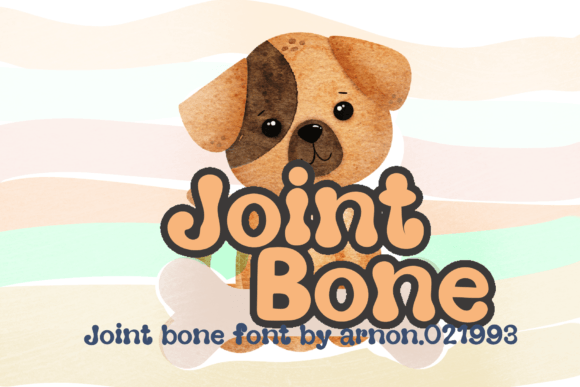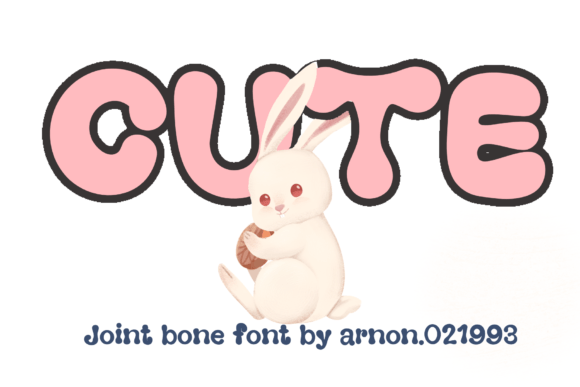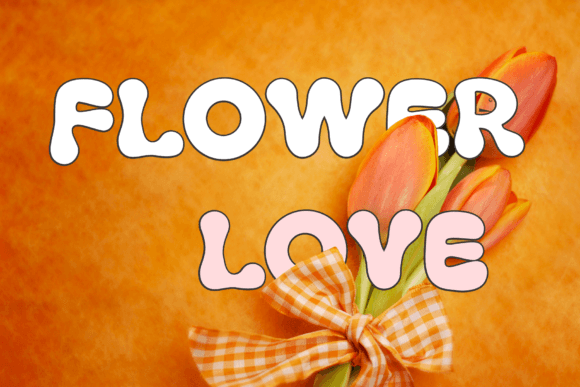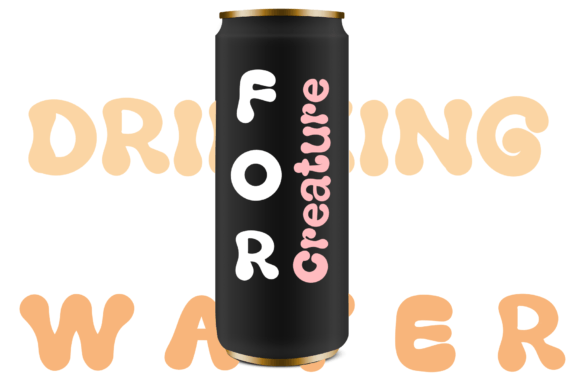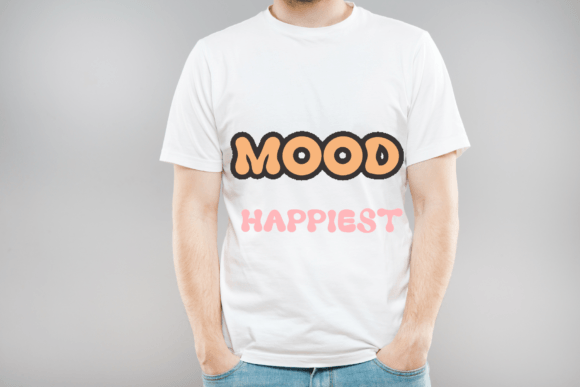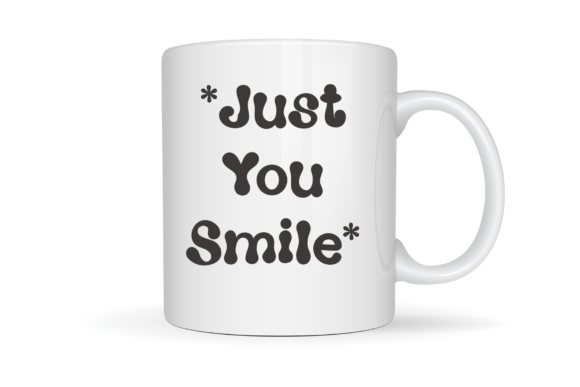
Introduction to Joint Bone Font
Imagine you’re brainstorming ideas for a new greeting card design. You have a blank canvas, a cup of coffee, and a spark of creativity that just won’t quit. Suddenly, the perfect font pops into your mind – something playful, high-quality, and attention-grabbing. This is where the Joint Bone Font comes in – a versatile design resource that will elevate your creative project to the next level.
As a designer, you’re constantly on the lookout for that one special font that will make your project stand out from the crowd. And with the Joint Bone Font, you’ve found it. This free download is perfect for adding a touch of whimsy to your designs, and its transparent background makes it easy to customize and integrate into any project. Whether you’re working on a birthday card, a logo, or a social media campaign, the Joint Bone Font is sure to bring a smile to your face and a professional touch to your work.
Key Features of Joint Bone Font
- High-quality design resource ideal for creative projects, including illustrations, animations, and graphics.
- Joint Bone Font is a unique design resource that can add a touch of elegance and sophistication to any creative project.
Honest Review: Joint Bone Font
As a designer, I’m always on the lookout for high-quality design resources to elevate my creative projects. Recently, I stumbled upon the Joint Bone Font, and I’m excited to share my thoughts on it.
What works well about this font is its unique and quirky design. The Joint Bone Font features a mix of modern and vintage elements that are sure to add a touch of personality to any project. I particularly love the variety of weights and styles available, making it easy to find the perfect fit for my design.
The font also includes a transparent background option, which is perfect for designers who want to create seamless designs or layer their typography with ease.
Pros:
- Unique and quirky design ✨
- Variety of weights and styles available ✨
- Transparent background option ✨
Cons:
- Limited characters and symbols available ⚠️
- Not ideal for large-scale typography projects ⚠️
Overall, I’m impressed with the Joint Bone Font. It’s a great addition to any designer’s toolkit, and I appreciate the free download option available. However, I do wish there were more characters and symbols available, and it may not be the best choice for large-scale typography projects. Nevertheless, it’s a fantastic resource for smaller projects or designers looking for a unique touch.
Tips for Getting the Most Out of Joint Bone Font
To get the most out of Joint Bone Font, experiment with different font sizes and styles to create a unique look. You can also combine Joint Bone Font with other design elements, such as images or graphics, to create a visually appealing design. With its high-quality design and transparent background, Joint Bone Font is an excellent choice for designers looking to add a creative touch to their project.
Joint Bone Font is commonly used for creative projects, such as graphic design, digital art, and typography. Its unique design and transparent background make it an excellent choice for overlaying on images or videos. With its high-quality design and free download, Joint Bone Font is an excellent choice for designers working on a budget.
Can I edit or customize Joint Bone Font?
Joint Bone Font is a pre-designed font, and its original design and layout cannot be modified. However, you can use font editing software to create custom variations, such as font styles or sizes, to suit your design needs. Keep in mind that modifying the font may affect its quality and compatibility with certain applications.